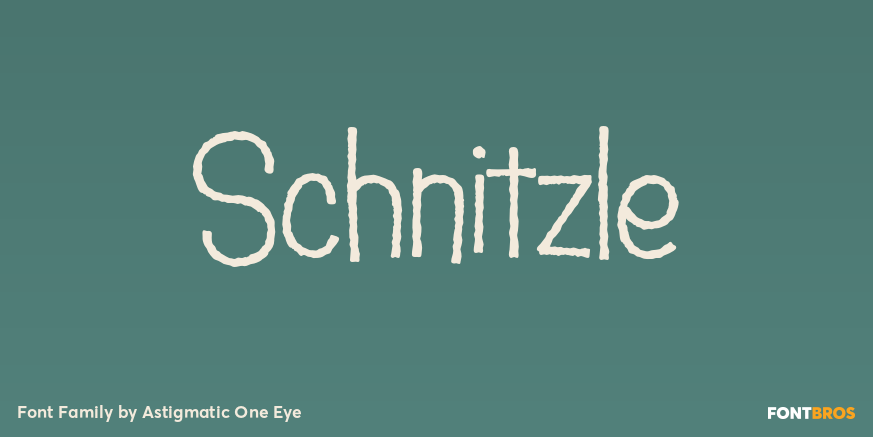
Schnitzle
About Schnitzle
Inspired by lettering from a series of old detergent ads, Schnitzle is a stylish and playful typeface. Easy to read, fun to look at, a perfect font for childrens\’ books, advertisements, and playful designs!